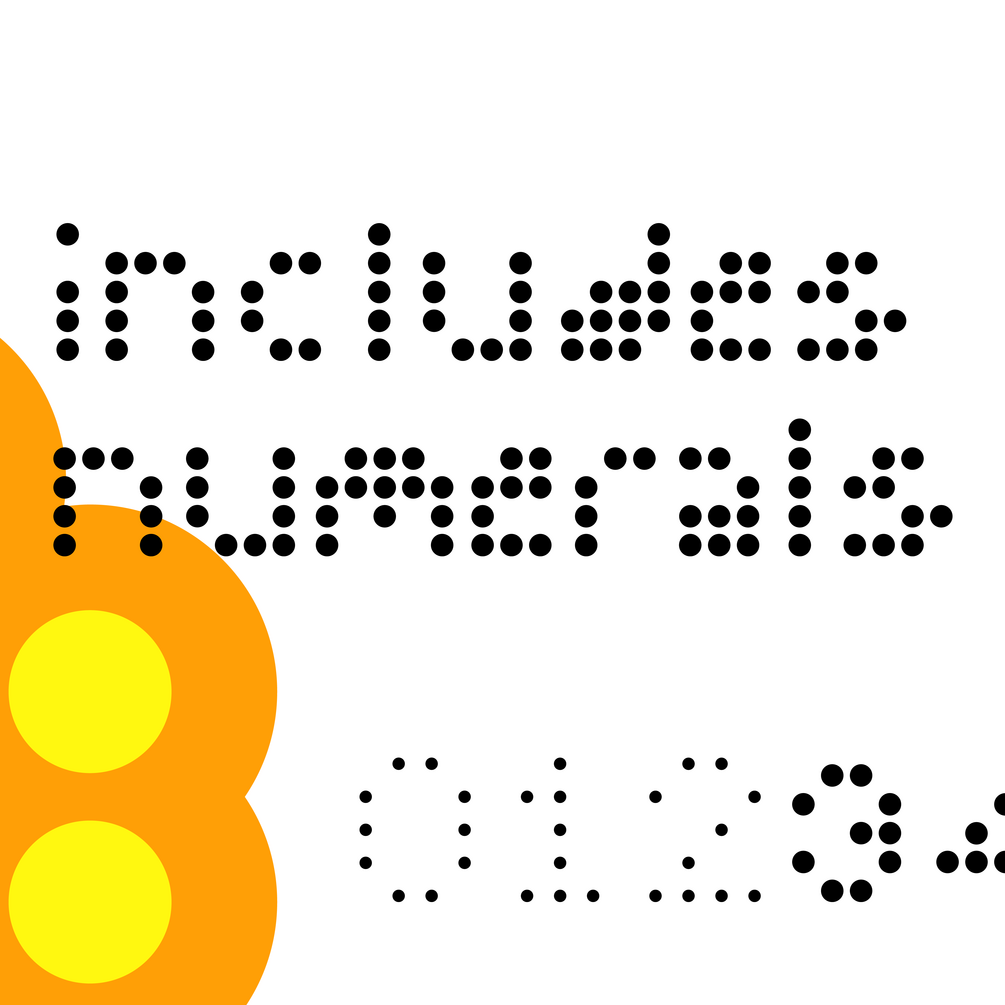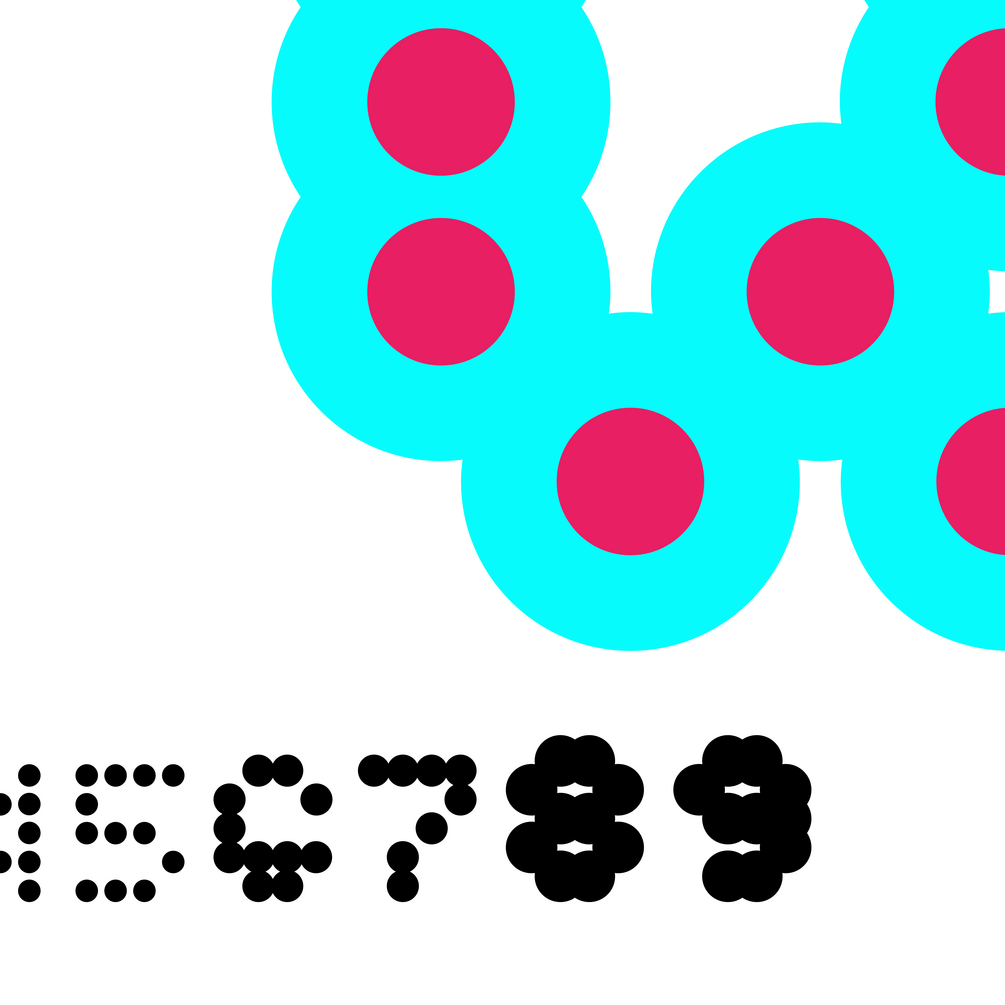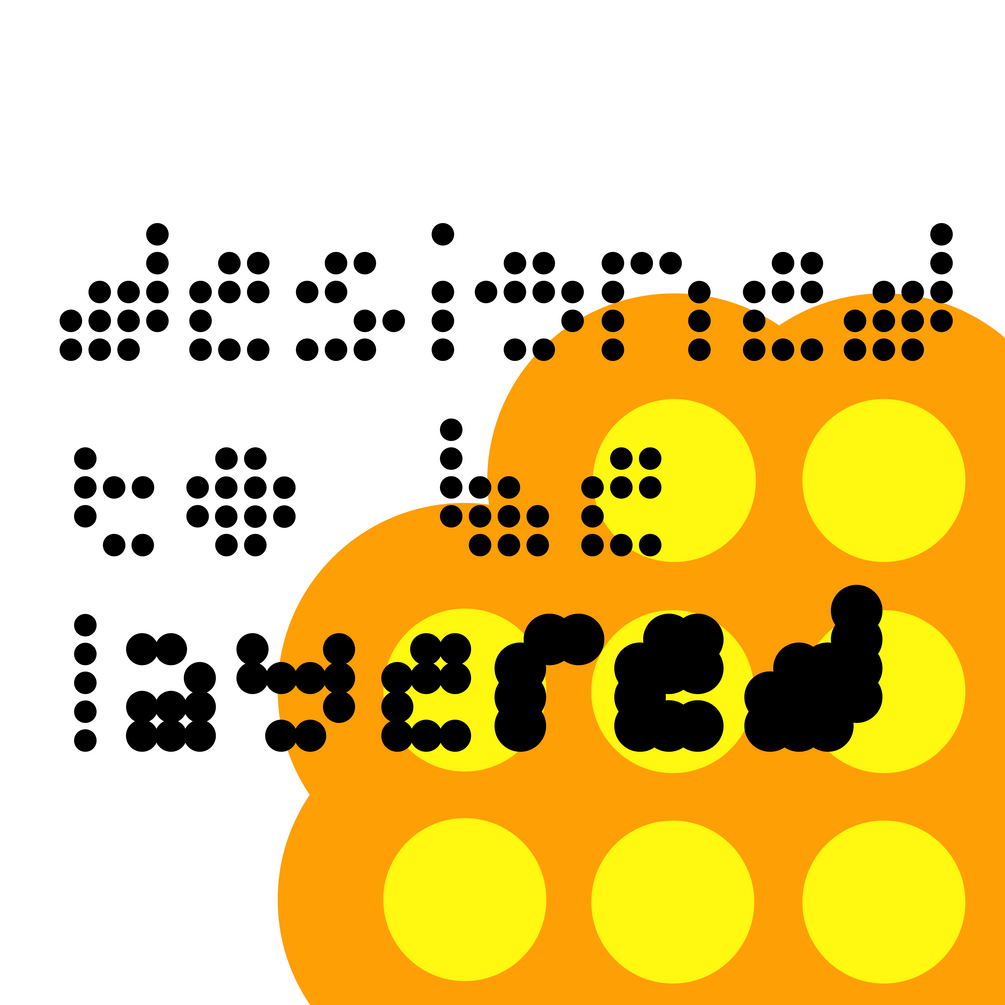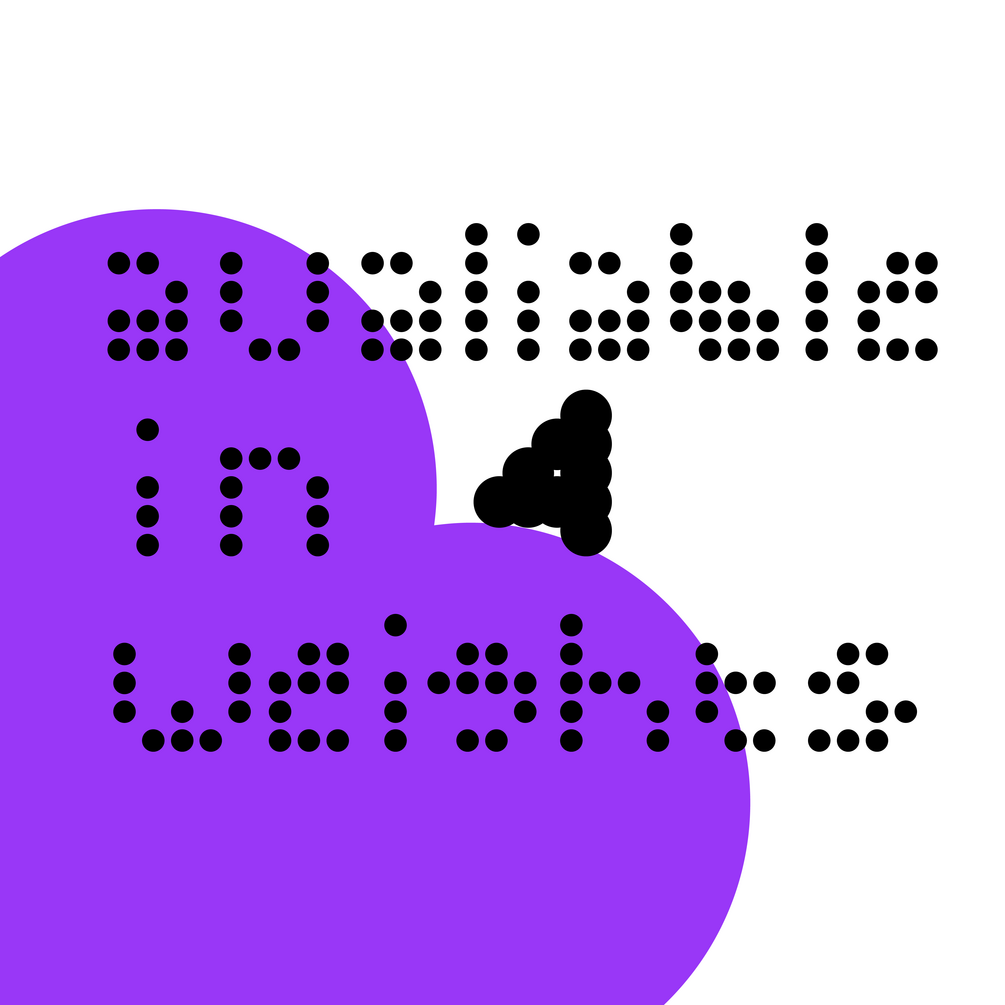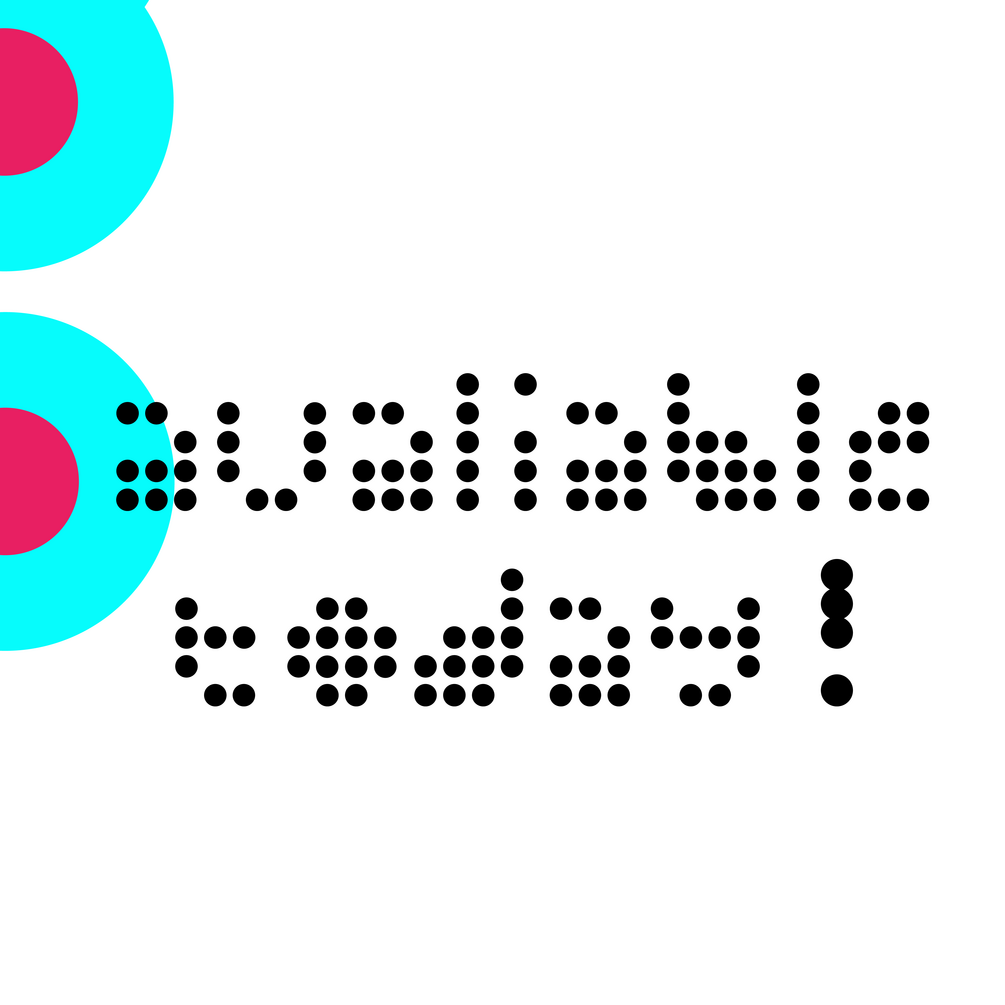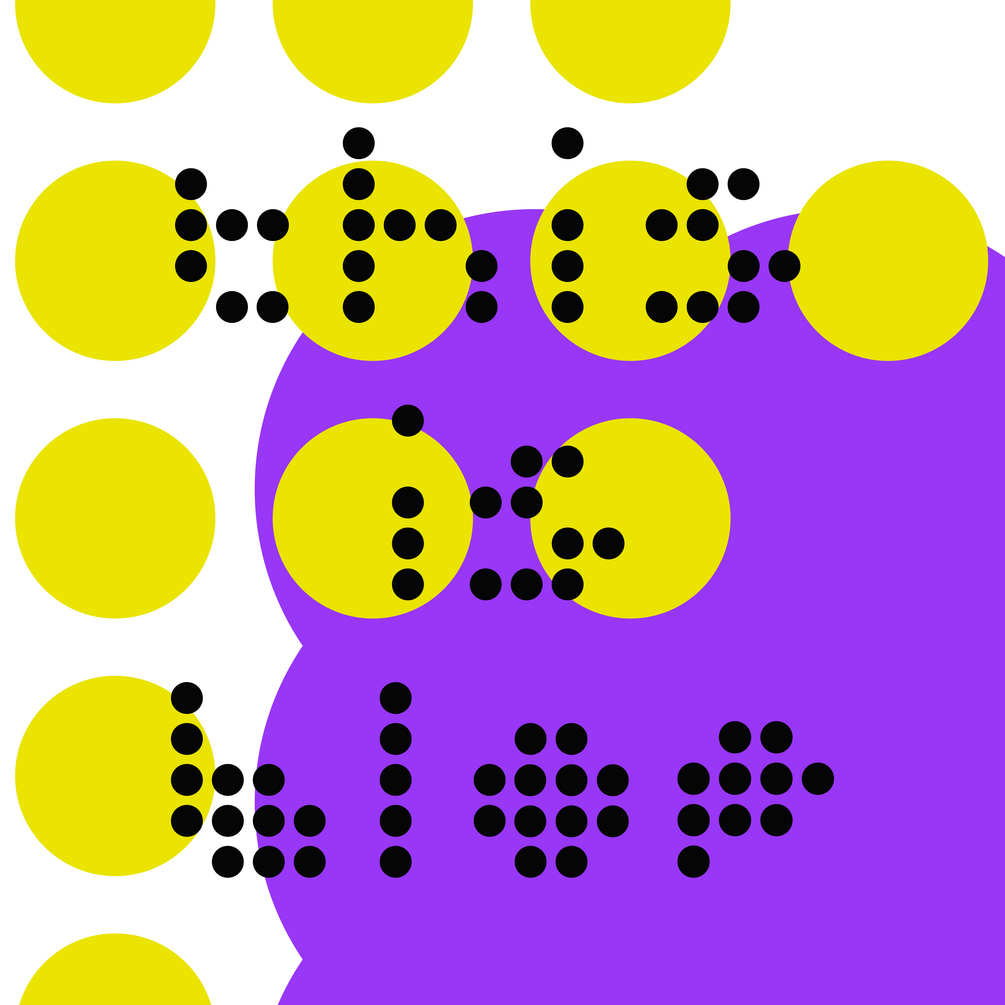
Blop
Featuring strictly ellipses, and a clear grid structure. Blop is a typeface Inspired by the work of the design studio 8vo and the Y2K aesthetic of the early 2000's
Including 4 distinct weights, Blop was designed to be used at large scale for the biggest impact.